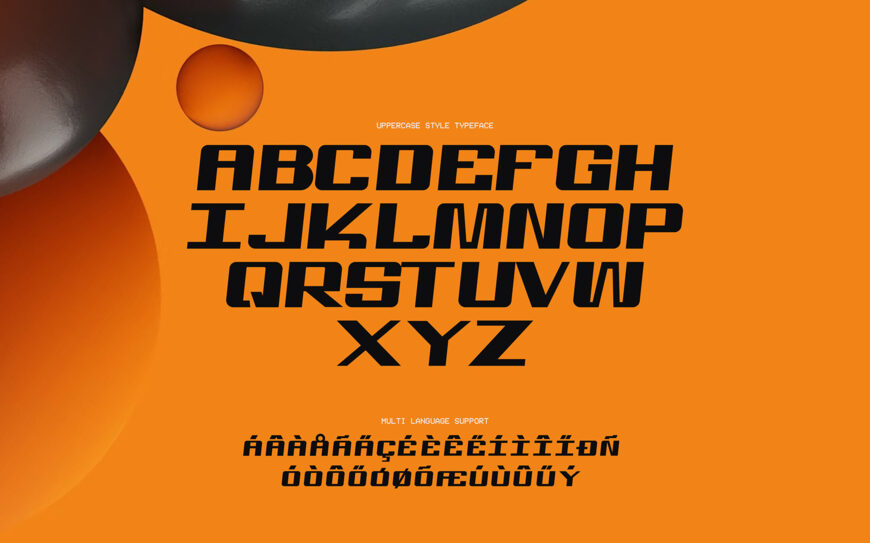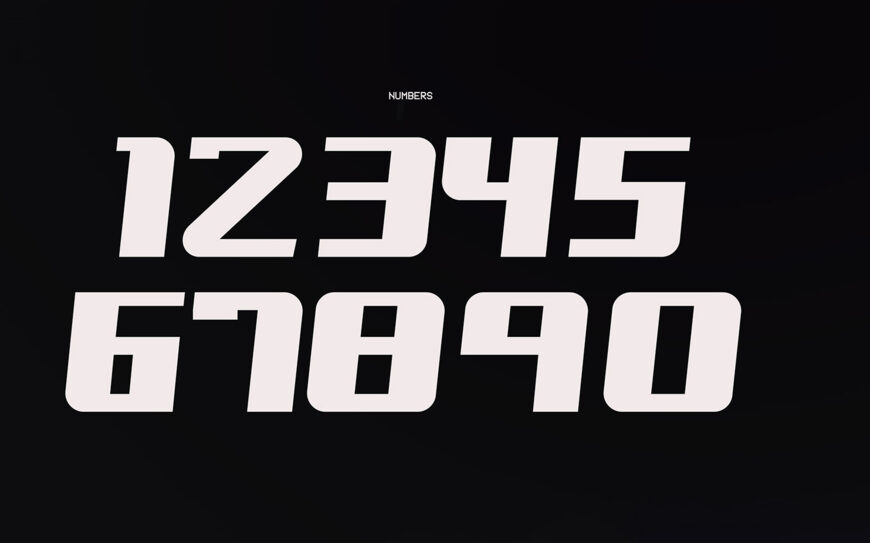
Tough Font
Tough is a bold futuristic display font created to deliver strong, confident typography with a modern urban character. Its heavy letterforms and striking presence make it ideal for headlines, posters, branding, sports, apparel, logos, and promotional graphics. Designed by Sesohq, the typeface is available free for both personal and commercial use.